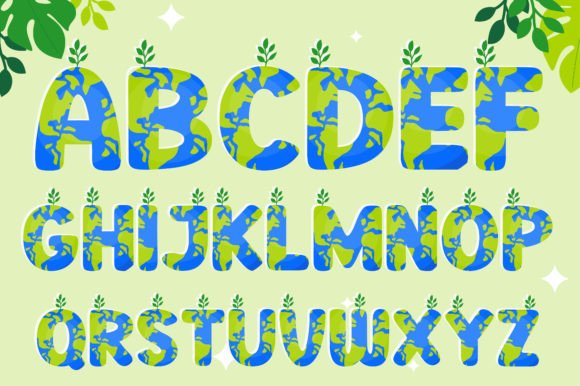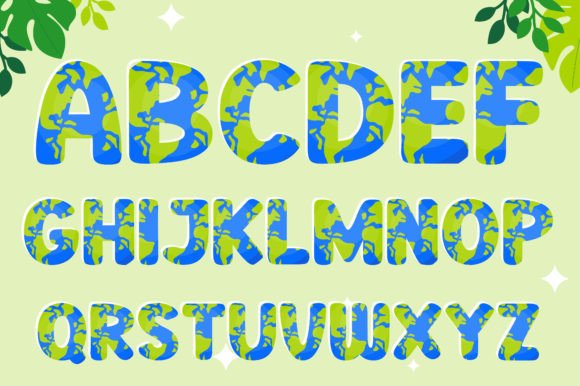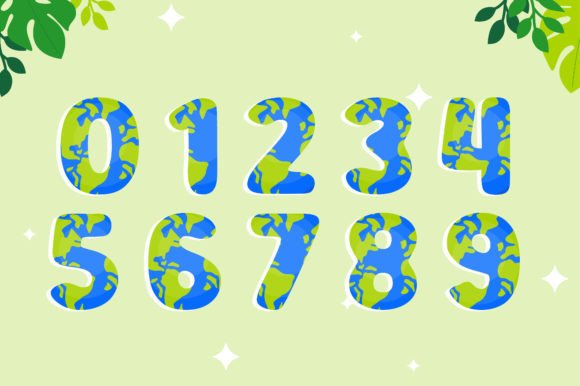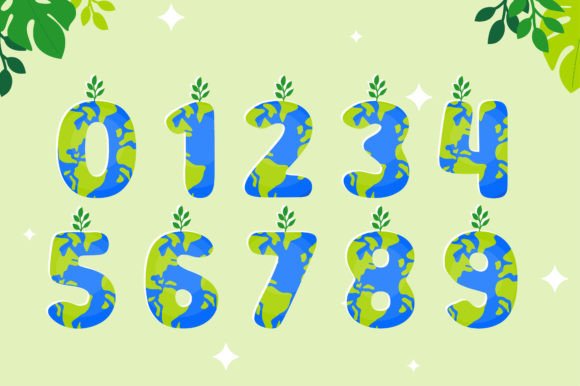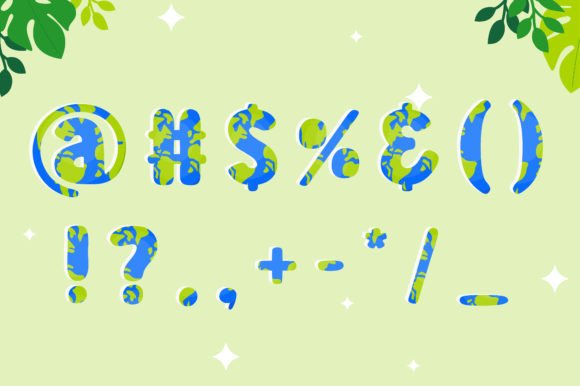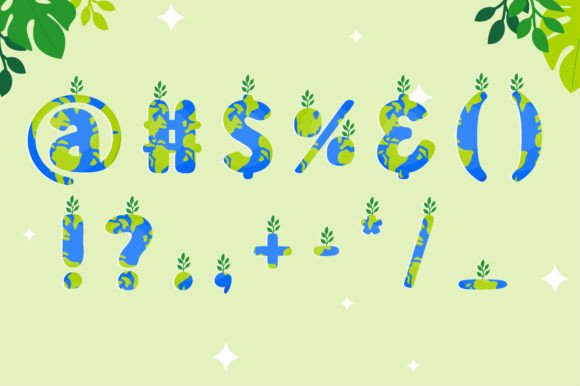
Introducing Earth Font: Bringing Nature’s Beauty to Your Designs
In the world of typography, fonts play a crucial role in conveying the tone and personality of a brand or design. For eco-conscious brands, nature-themed designs, and creative professionals looking to add a touch of the outdoors to their work, the Earth Font is a game-changer. This captivating color font features intricate earth patterns, bringing a unique and refreshing element to your designs.
The Unique Features of Earth Font
Earth Font is more than just a typeface – it’s an experience. Each letter is carefully crafted with detailed and earthy illustrations, making it a standout in the world of typography. The font’s intricate patterns and natural textures evoke a sense of connection to the earth, perfect for brands and designers who want to convey a sense of sustainability and eco-friendliness.
Perfect for Eco-Conscious Brands and Nature-Themed Designs
Earth Font is specifically designed with eco-conscious brands and nature-themed designs in mind. Whether you’re working on a project for an environmental organization, a sustainable fashion brand, or a outdoor gear company, this font is the perfect choice. Its earthy and natural vibe instantly communicates your brand’s values and personality, helping you connect with your target audience on a deeper level.
Adding a Touch of Nature to Your Designs
One of the most significant benefits of Earth Font is its ability to add a touch of nature to your designs. The font’s unique illustrations and textures bring a sense of organic beauty to your work, making it perfect for a wide range of design applications, from branding and packaging to posters and social media graphics.
Key Benefits of Earth Font
- Unique and eye-catching design: Earth Font’s intricate earth patterns and natural textures make it a standout in the world of typography.
- Eco-friendly and sustainable: Perfect for eco-conscious brands and nature-themed designs, this font instantly communicates your brand’s values and personality.
- Versatile: Suitable for a wide range of design applications, from branding and packaging to posters and social media graphics.
- Easy to use: Earth Font is a color font, making it easy to use and customize in your designs.
Tips and Tricks for Getting the Most Out of Earth Font
To get the most out of Earth Font, try the following tips and tricks:
- Experiment with different colors: Earth Font comes in a range of colors, so don’t be afraid to experiment and find the perfect combination for your design.
- Add textures and patterns: Take your design to the next level by adding textures and patterns that complement the earthy vibe of the font.
- Use it sparingly: Earth Font is a bold and eye-catching font, so use it sparingly to avoid overwhelming your design.
| Font Name | Earth Font |
| Author | NN-Font Design |
Earth Font is a game-changing color font that brings a touch of nature to your designs. With its intricate earth patterns and natural textures, this unique typeface is perfect for eco-conscious brands, nature-themed designs, and creative professionals looking to add a touch of the outdoors to their work. Whether you’re working on a branding project, a packaging design, or a social media graphic, Earth Font is the perfect choice.